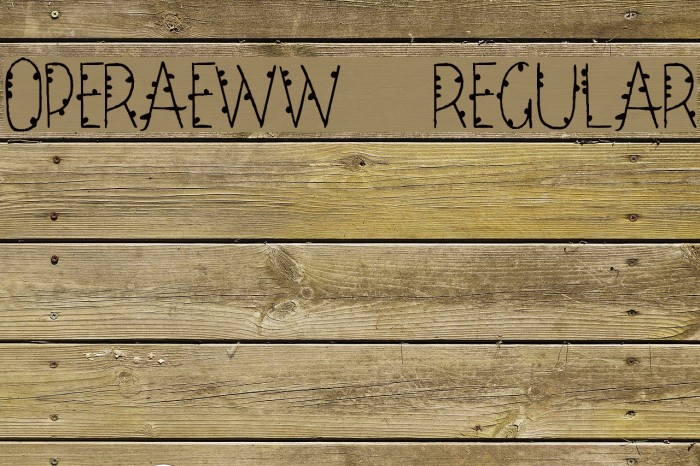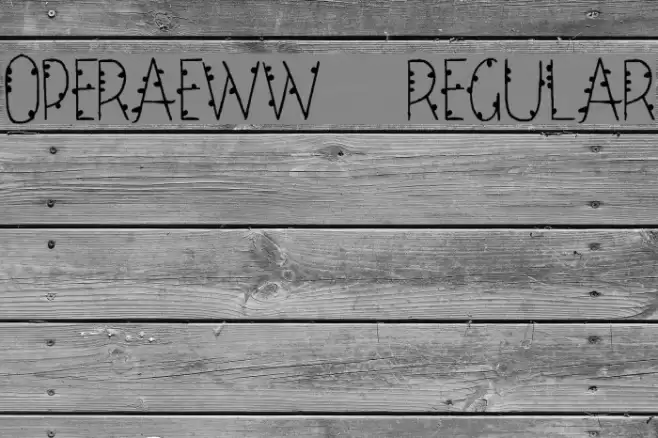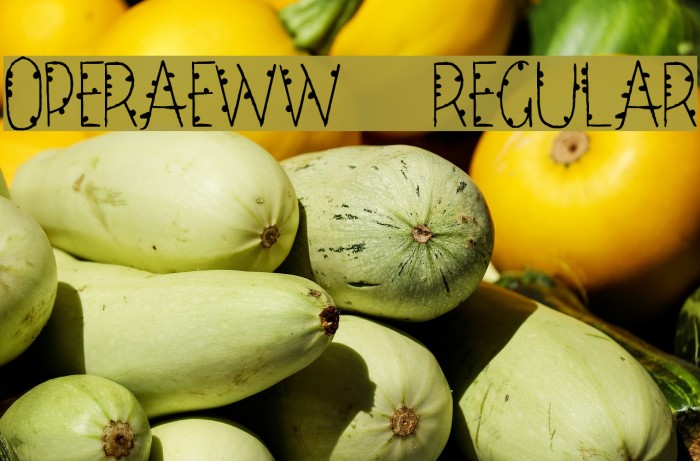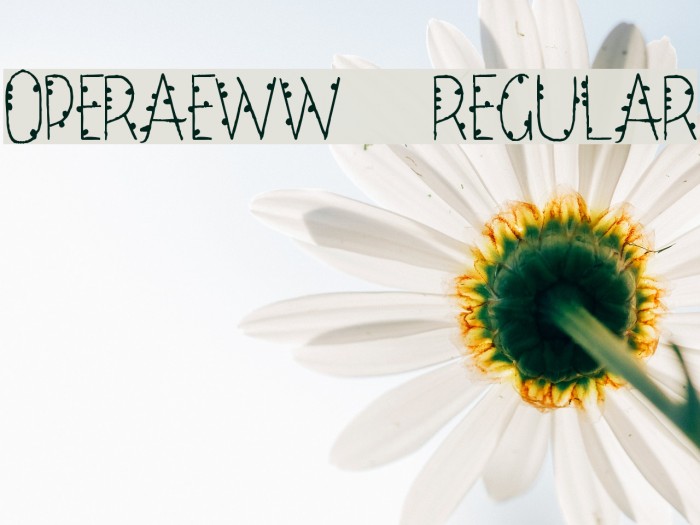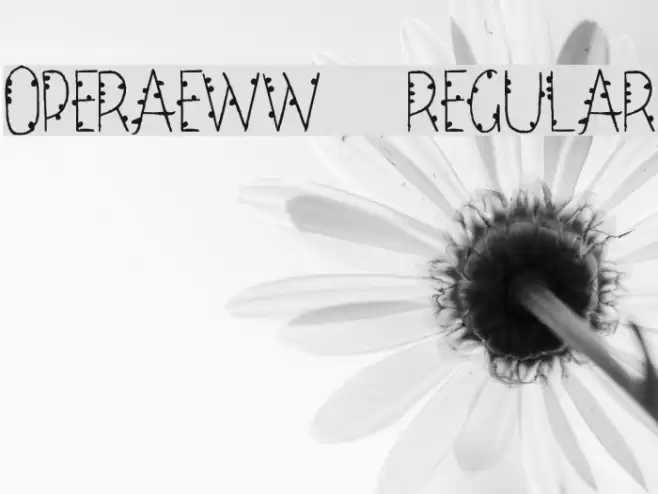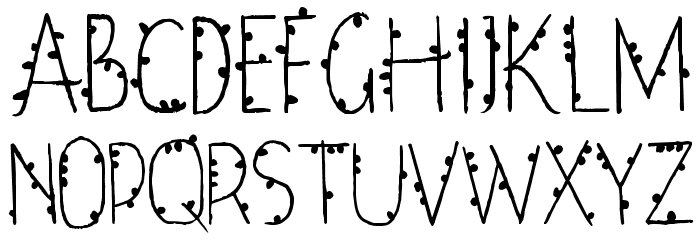
OperaEww-Regular Font
OperaEww-Regular Description
This font features a unique and decorative style, characterized by its intricate and playful design. Each letter is adorned with small, dot-like embellishments that give it a whimsical and artistic appearance. The strokes are thin and elongated, creating a sense of elegance and sophistication. The overall look is both modern and artistic, making it suitable for creative and expressive projects. The font maintains a consistent height across all characters, ensuring readability while still offering a distinct visual flair.
| Use Case | Headlines, Logos, Artistic projects |
| Proposed Projects | Ideal for artistic projects, invitations, posters, and branding that require a creative and unique touch. |